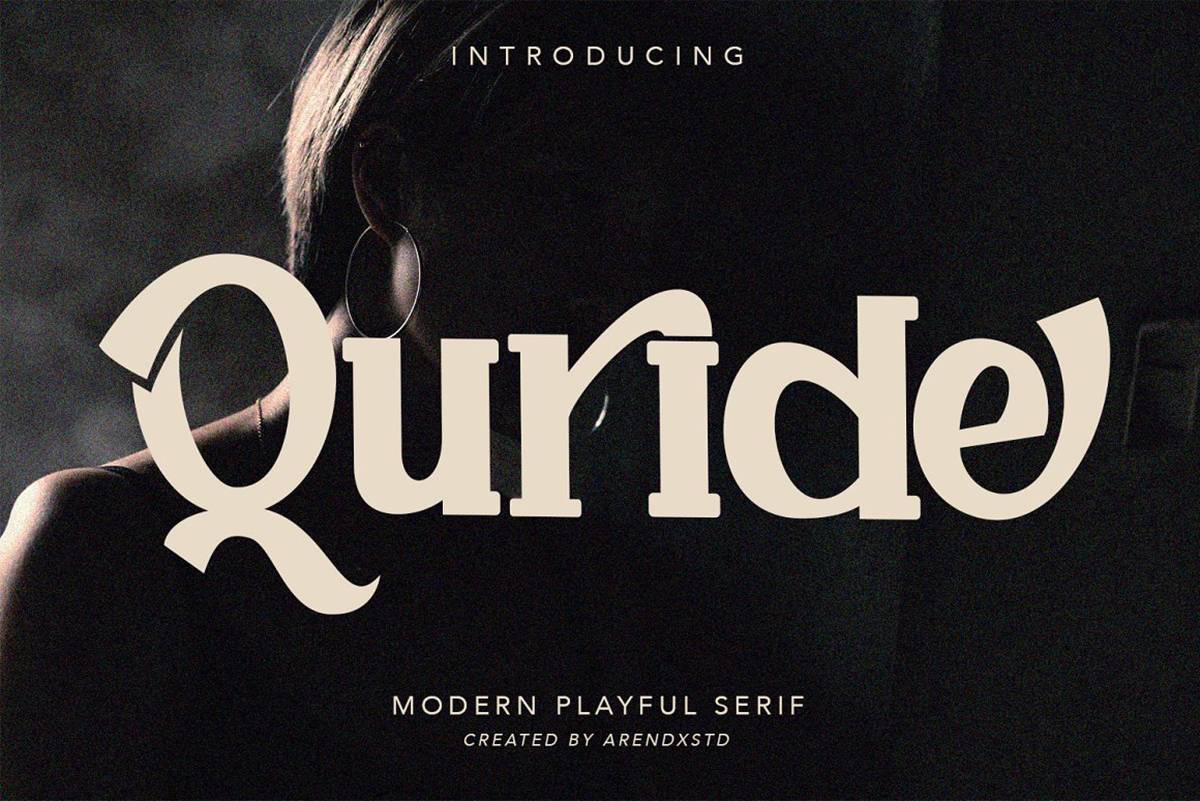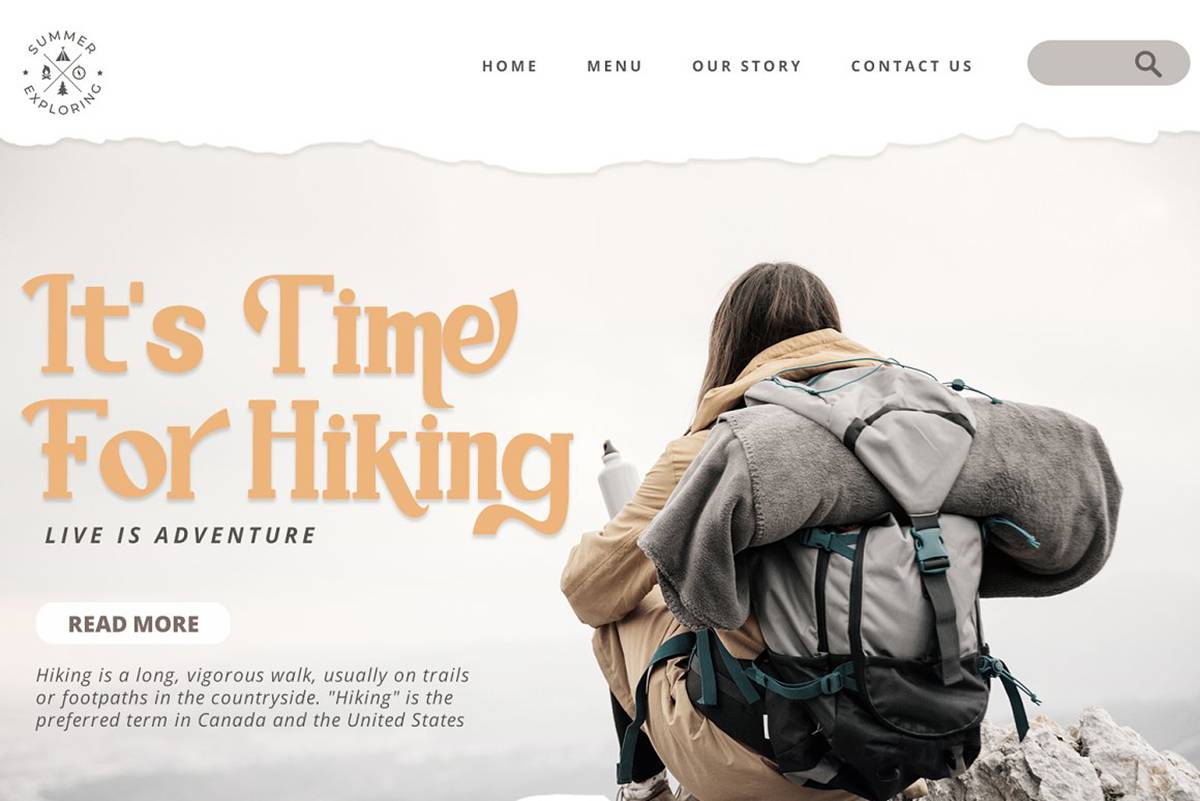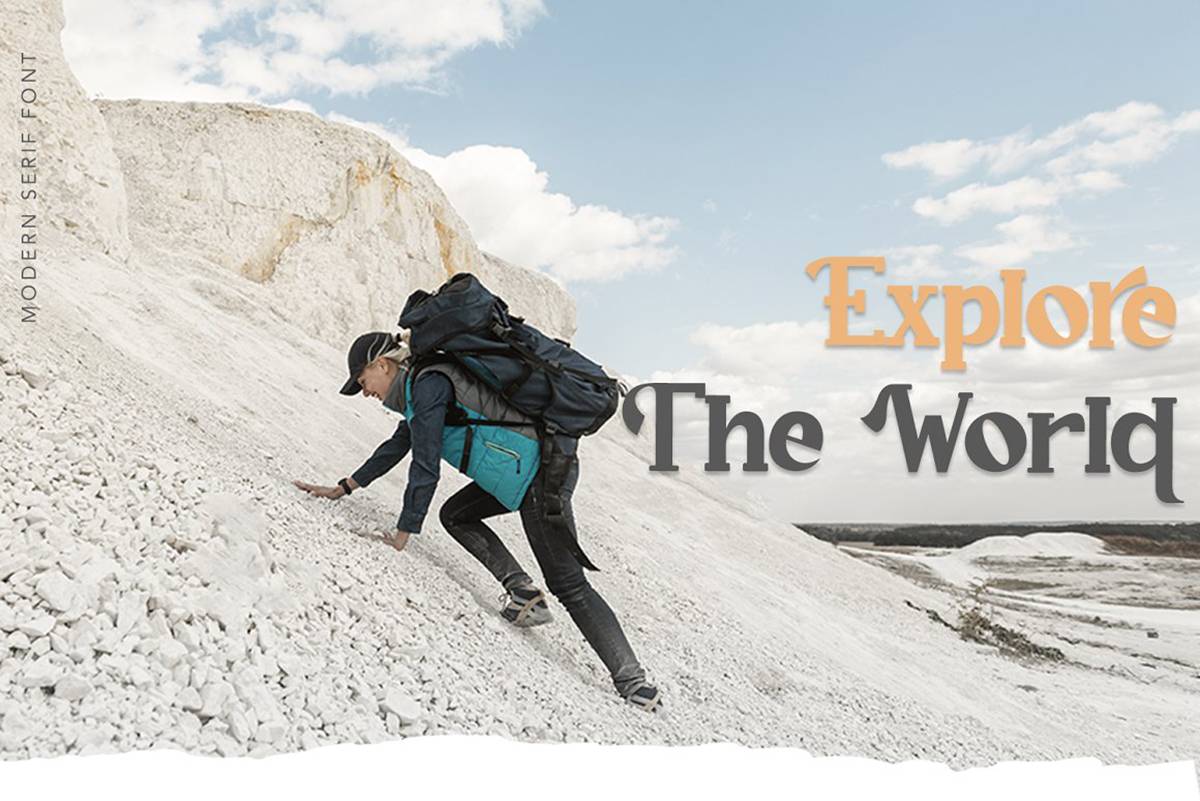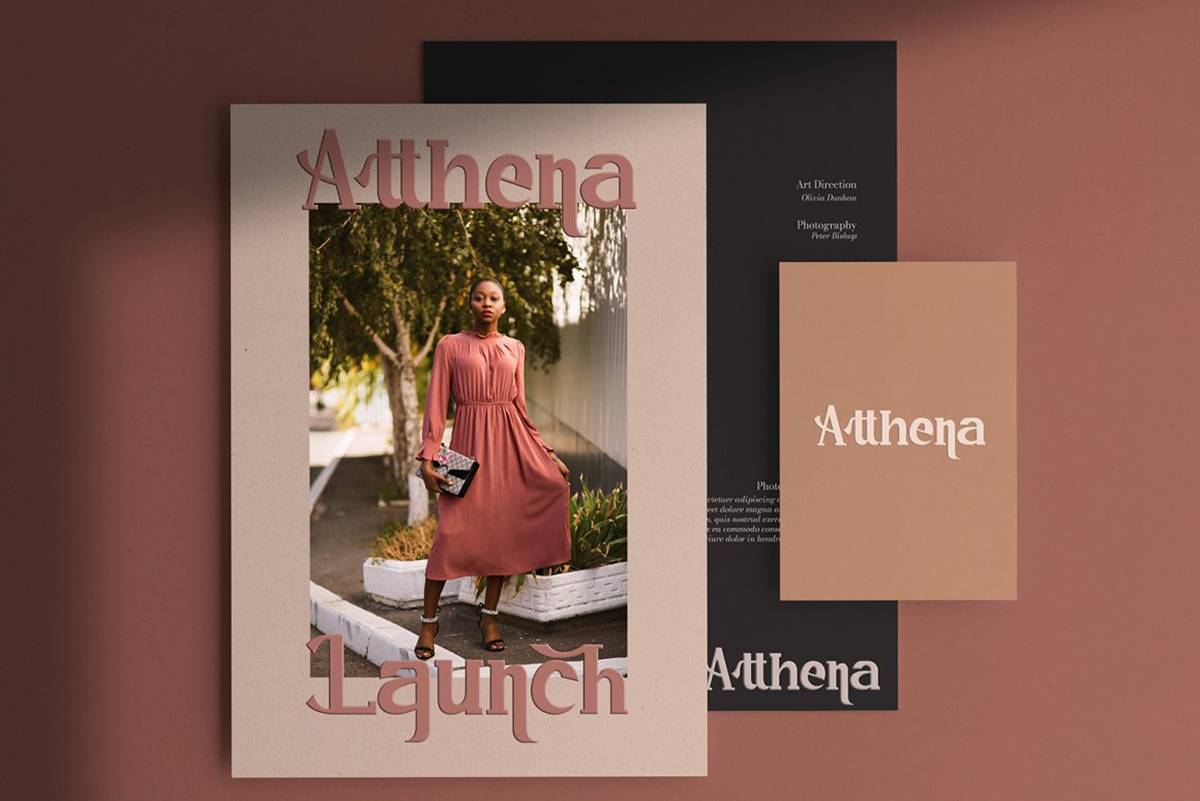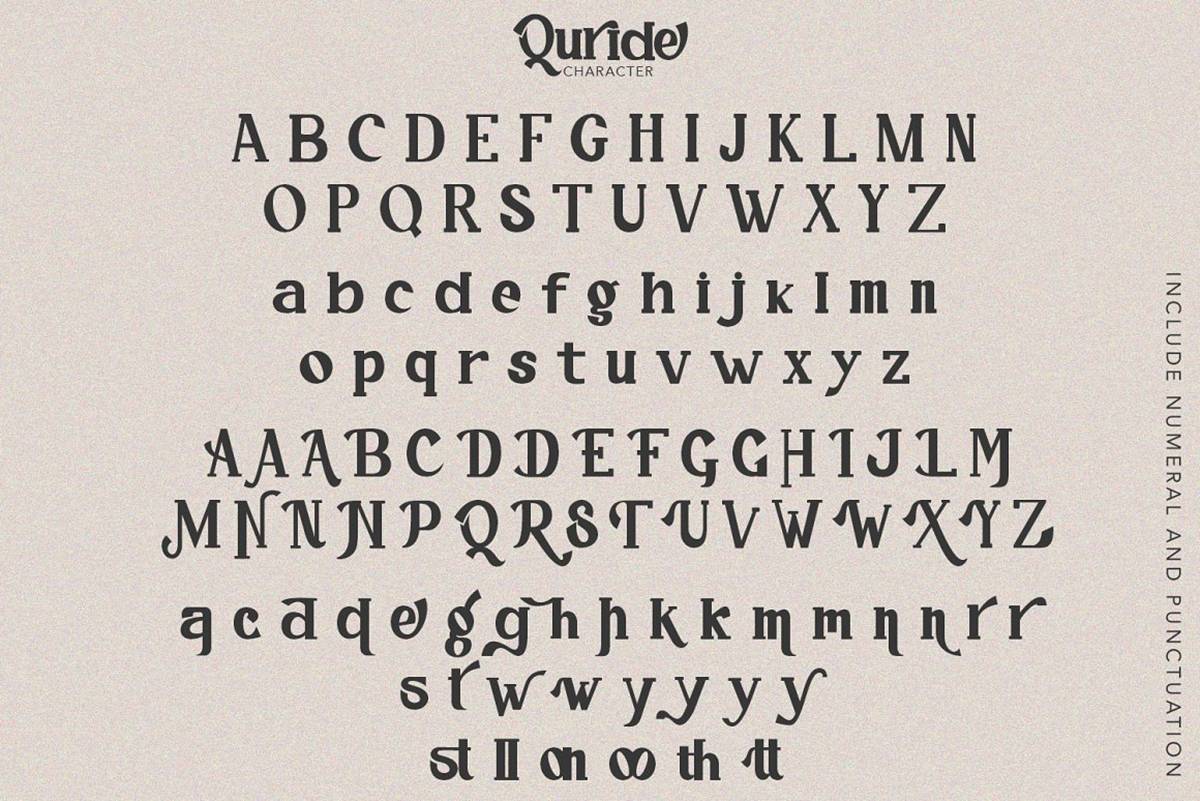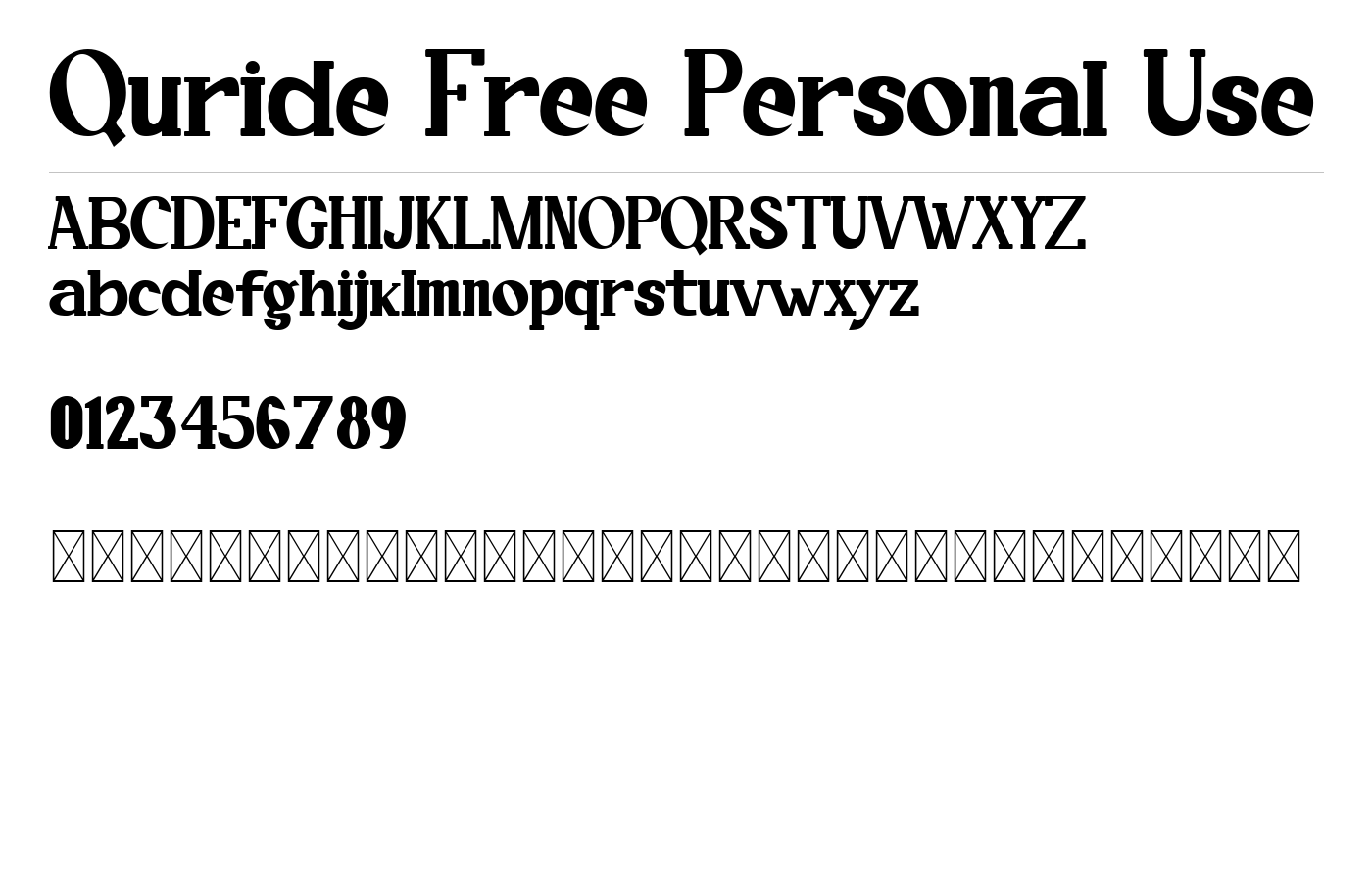
Quride is a striking serif font with a strong personality, featuring high contrast between thick and thin strokes and sharp, bracketed serifs that give it a blend of classic and contemporary style. Its bold weight and slightly condensed proportions make it ideal for impactful headlines, editorial designs, and branding that seeks to convey sophistication with a touch of modern flair. This font works best in settings where you want to combine elegance and readability, such as magazine covers, fashion packaging, and logo design.
Quride Font
About Quride Font
| Font family | Quride Font |